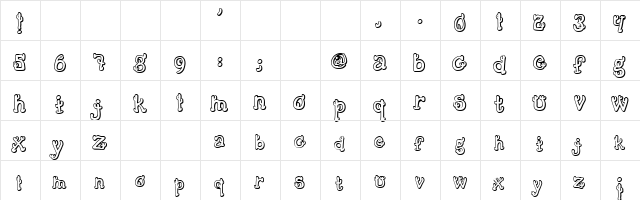
Cactus Sandwich Plain Regular
Design Context for Cactus Sandwich Plain Typeface
Cactus Sandwich Plain is a composed and adaptable typeface that performs quietly and consistently across a wide range of design contexts.